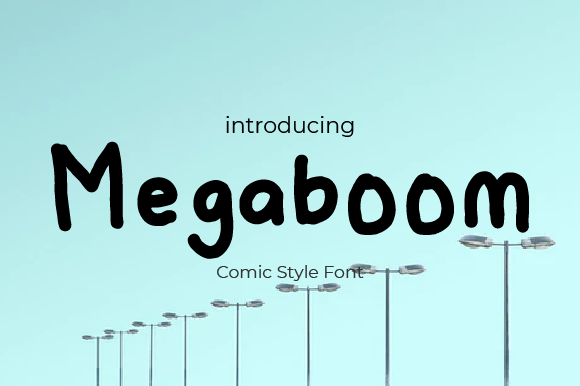
Megaboom Font
About Megaboom Font
Megaboom is a sweet and simple handwritten font. Its unique and neat style makes it incredibly versatile, fitting a wide range of designs. The only limit is your imagination!